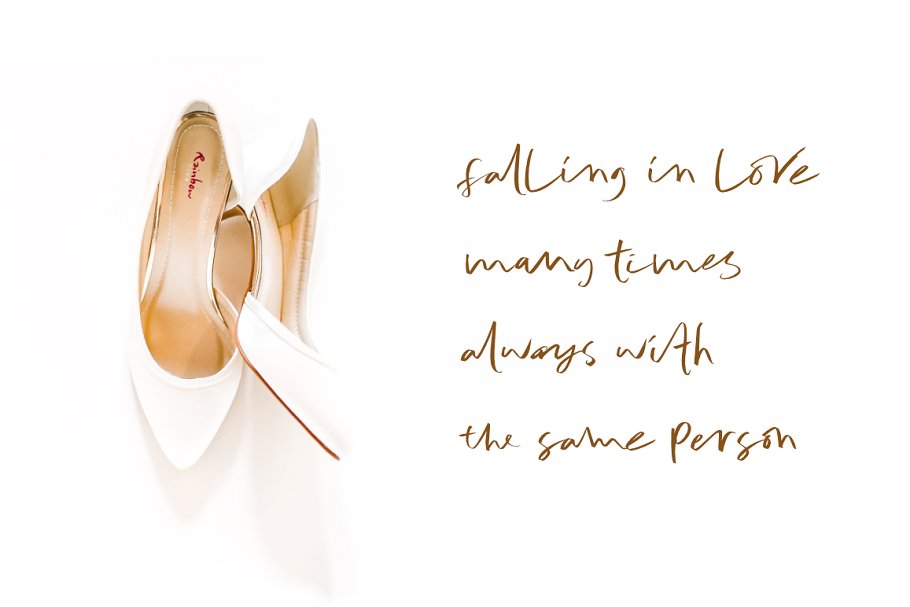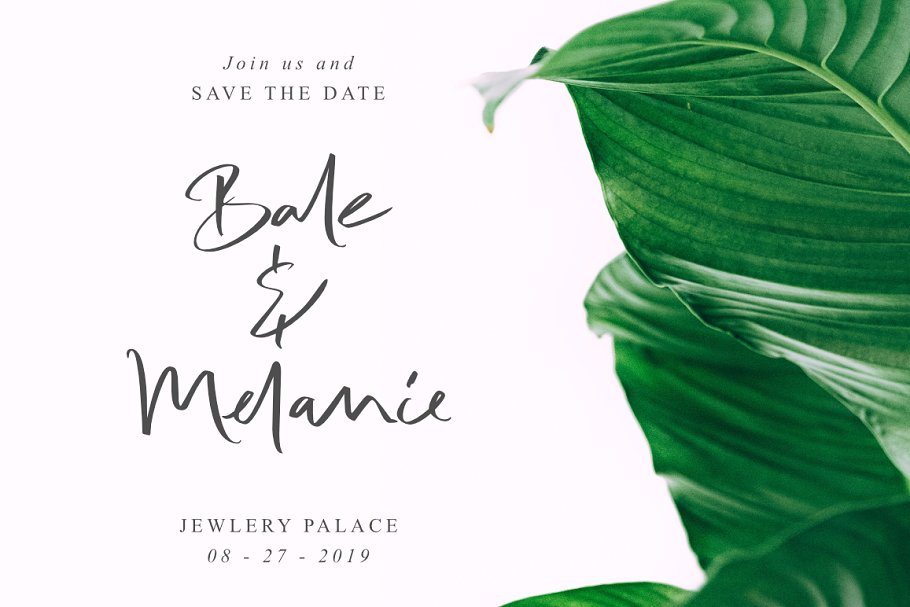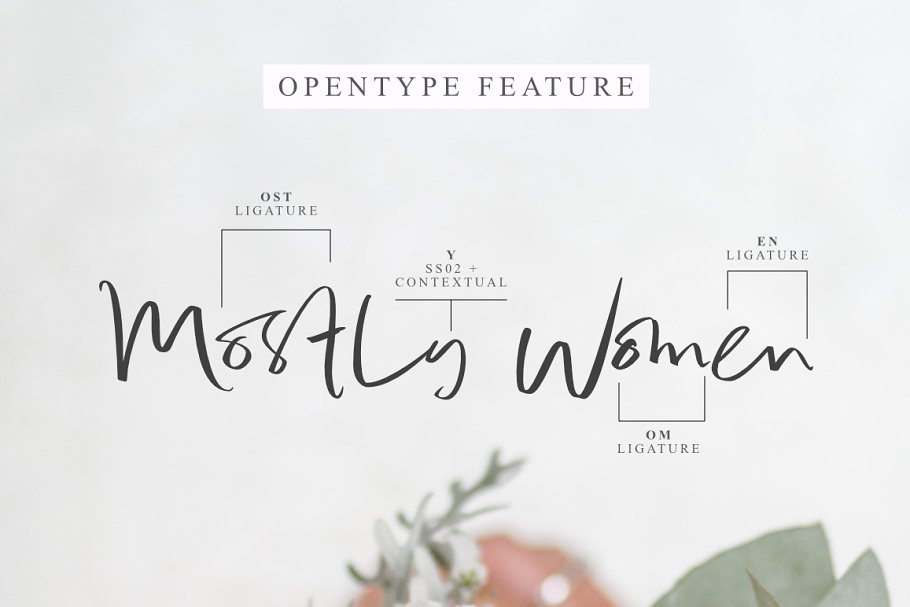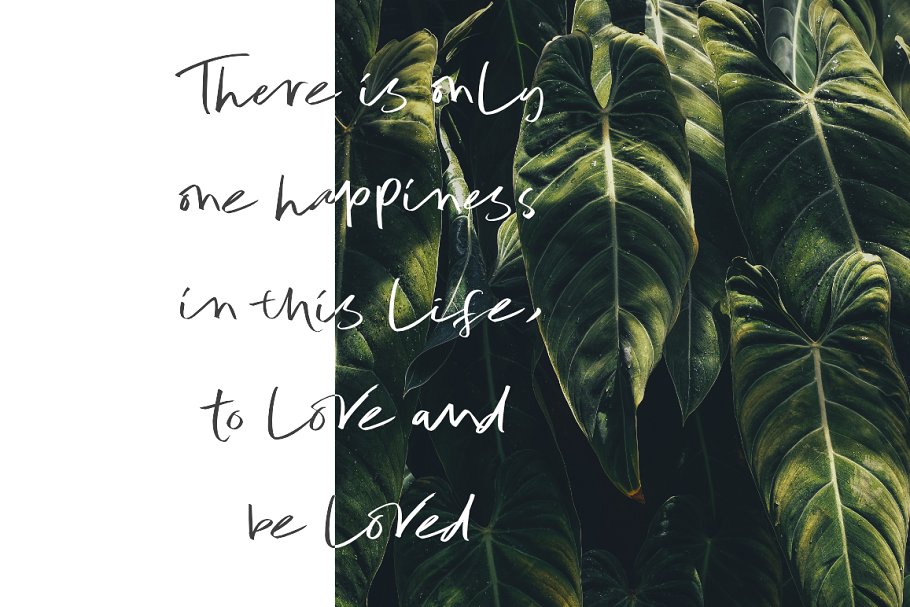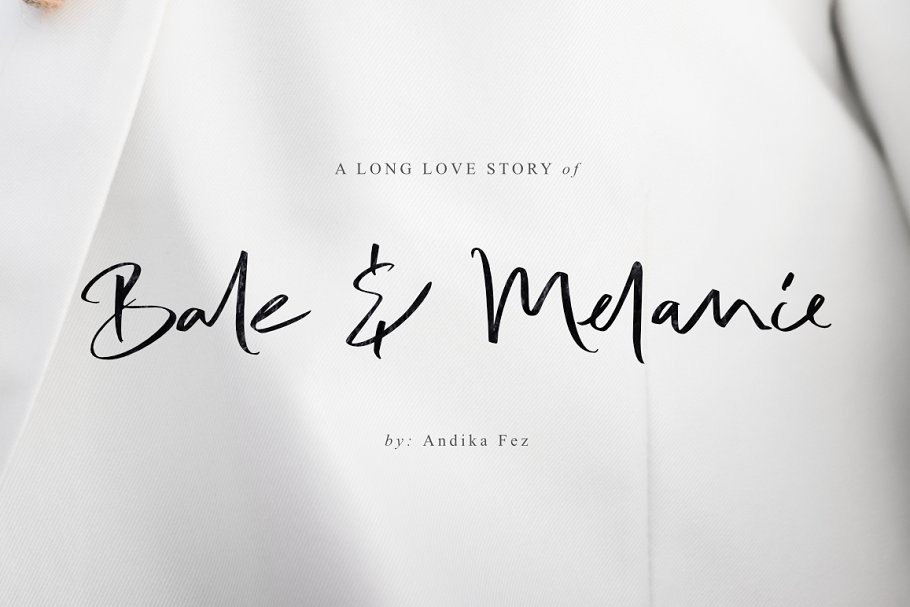
Bale & Melanie Script Font
Continue to be a free font package a solid handwritten font. Introducing Bale & Melanie Font. Bale & Melanie is a suitable handwritten font for any creative project needs like wedding invitation, headline, product promotion, product branding and many more.